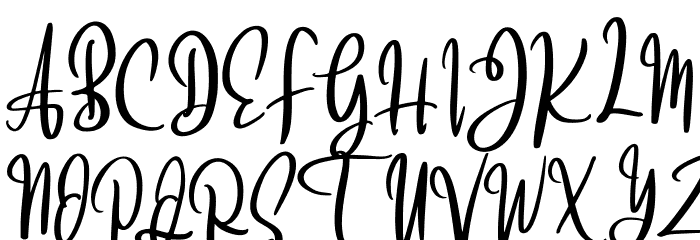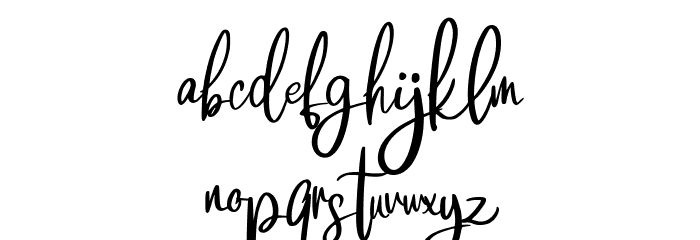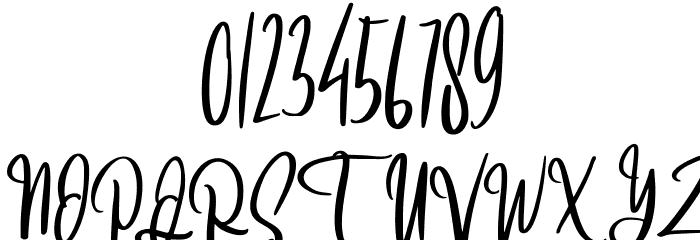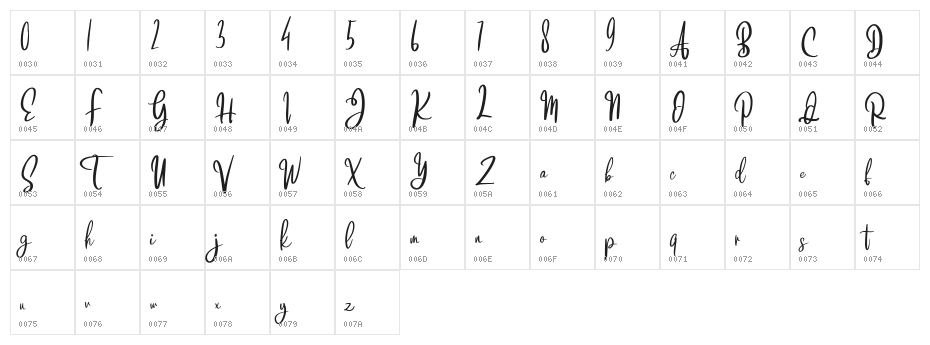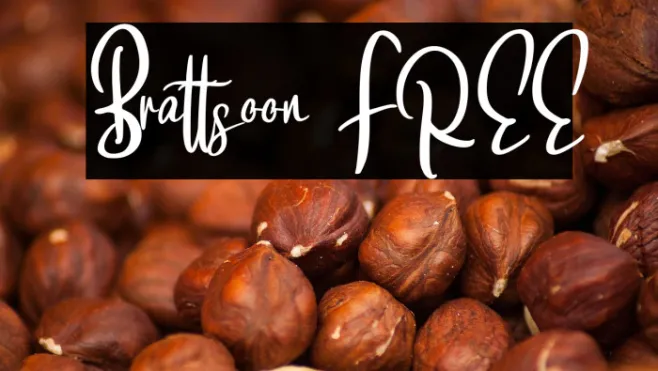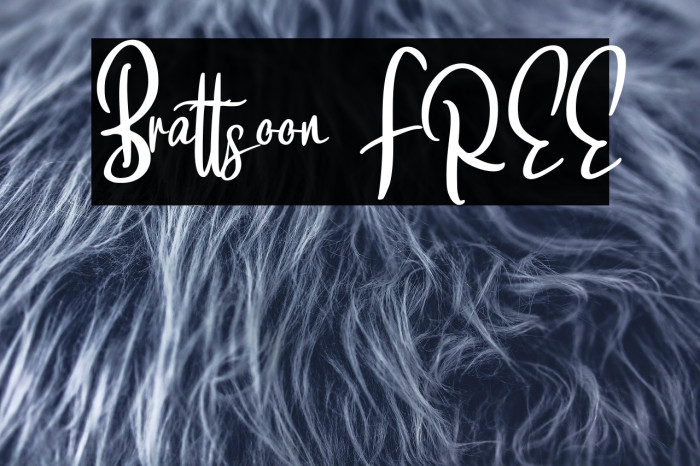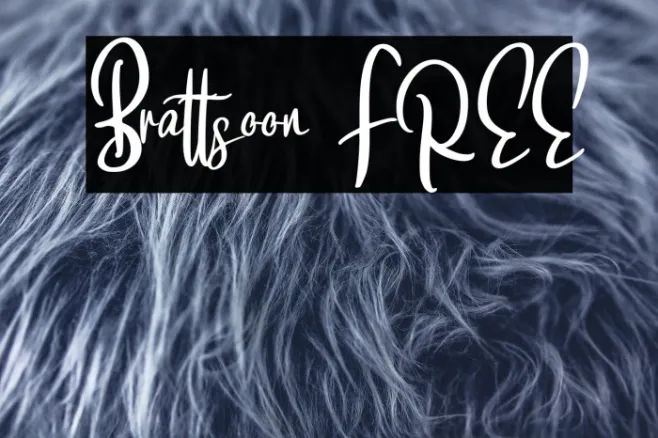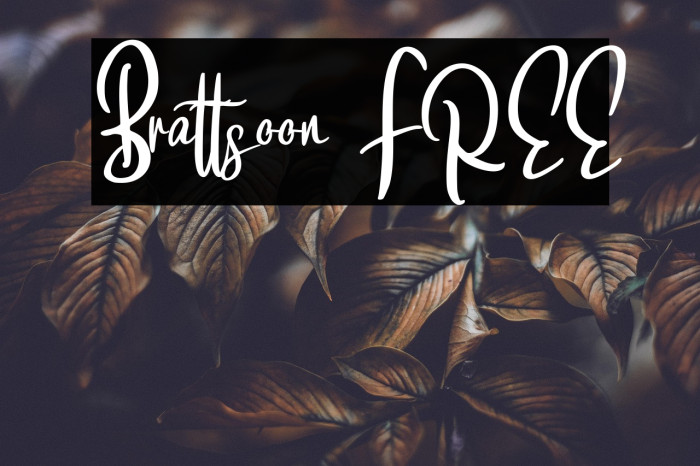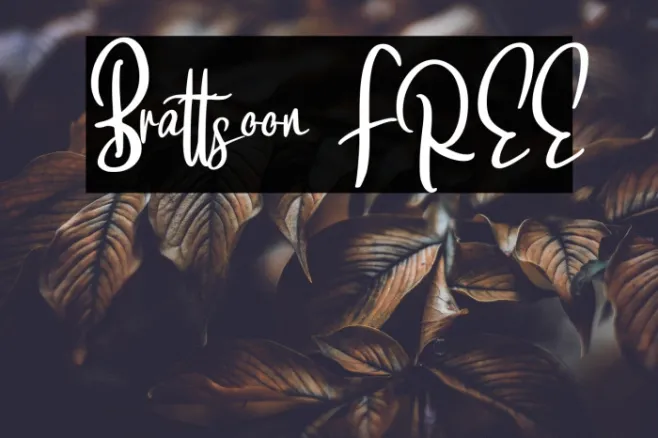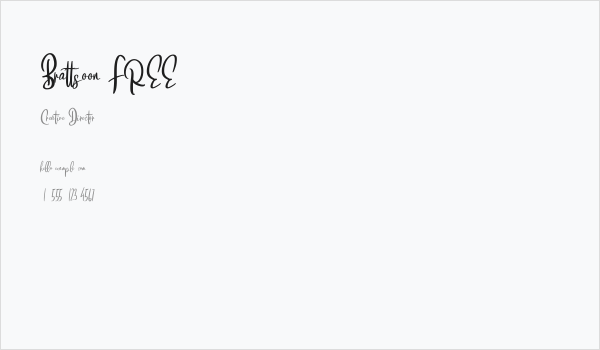
Brattsoon FREE Font
This font features a dynamic and flowing script style, characterized by its elegant and fluid letterforms. The uppercase letters are bold and expressive, with a playful yet sophisticated flair. The lowercase letters maintain a consistent rhythm, adding a touch of whimsy with their loops and curves. Numbers are designed to match the overall aesthetic, ensuring a cohesive look across all characters. The special characters blend seamlessly, enhancing the font's versatility. This font is perfect for projects that require a personal and artistic touch, such as invitations, branding, and creative designs.
A dynamic and flowing script font with elegant, expressive letterforms.
- Proposed Projects: Ideal for invitations, branding, creative designs, and artistic projects.
- Use Case: Logos, Headlines, Invitations